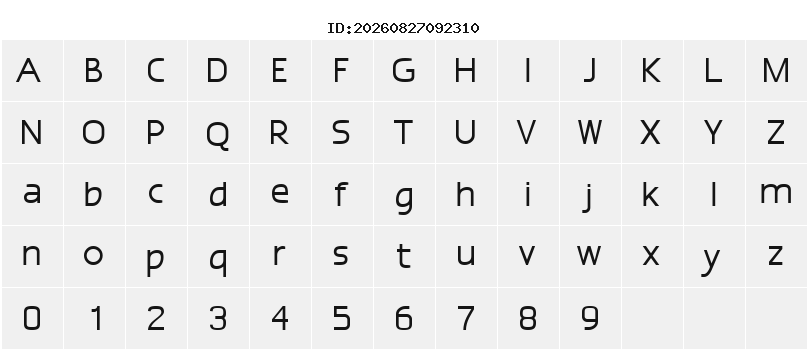
385-CAI978 Preview
• Font Name: 385-CAI978
• Full Font Name: 385-CAI978
• Version: Version 1.00 December 3, 1996, initial release
About 385-CAI978.ttf
385-CAI978.ttf is a modern, elegant sans-serif font designed for ultimate readability and visual harmony. Perfect for branding, headlines, web design, and print materials.